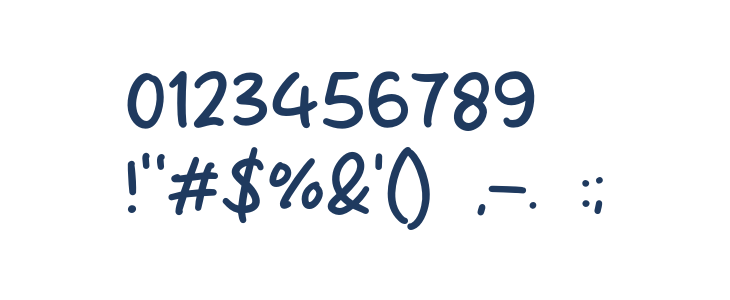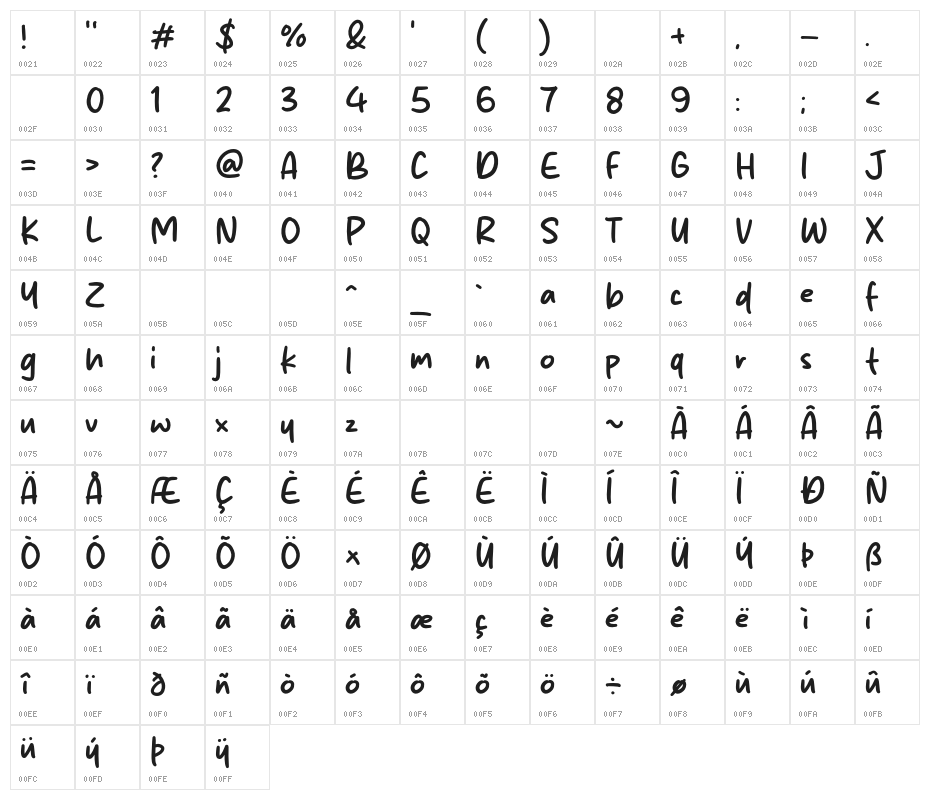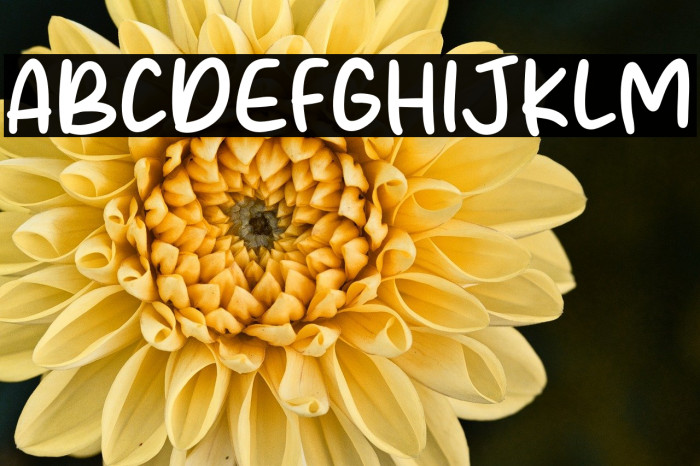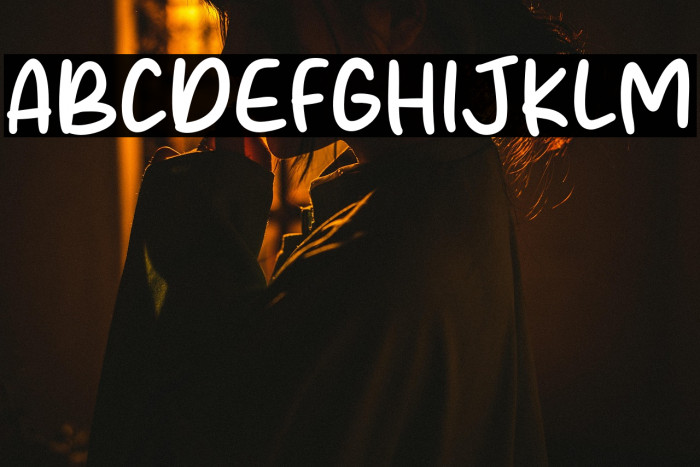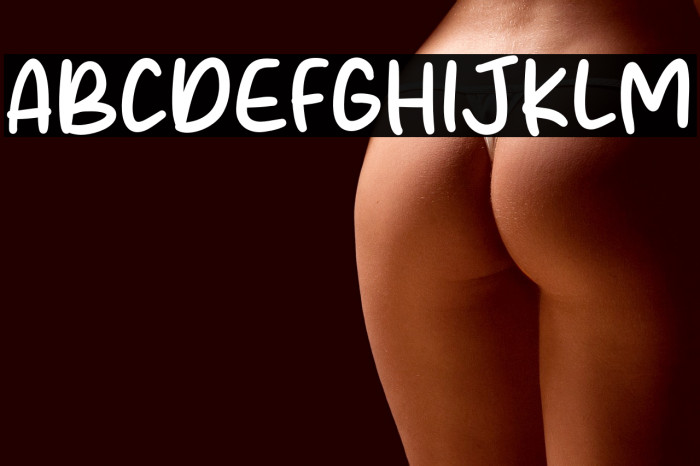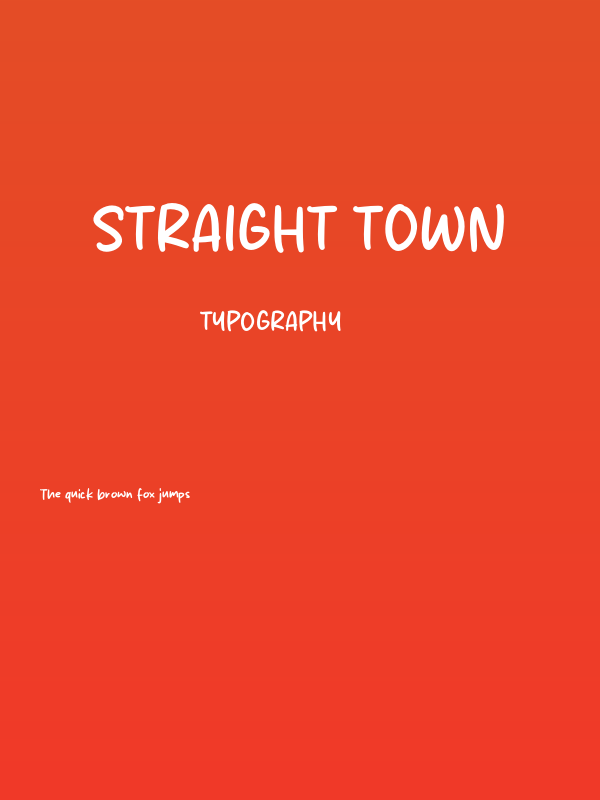
Straight Town Font
Straight Town Description
This font exudes a playful and casual handwritten style, characterized by its rounded and slightly irregular letterforms. The strokes are bold and consistent, giving it a friendly and approachable appearance. The uppercase and lowercase letters maintain a uniform height, contributing to its legibility. Numbers and special characters are crafted with the same playful essence, ensuring a cohesive look across all text. The overall design is informal yet clear, making it suitable for a variety of creative applications.
| Proposed Projects | Ideal for children's books, greeting cards, playful branding, and casual invitations. |